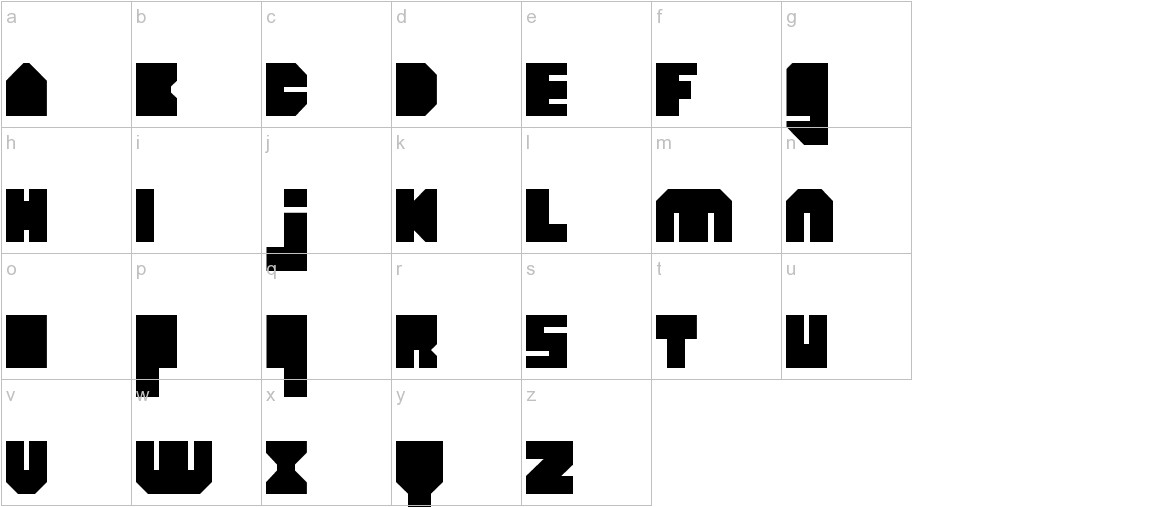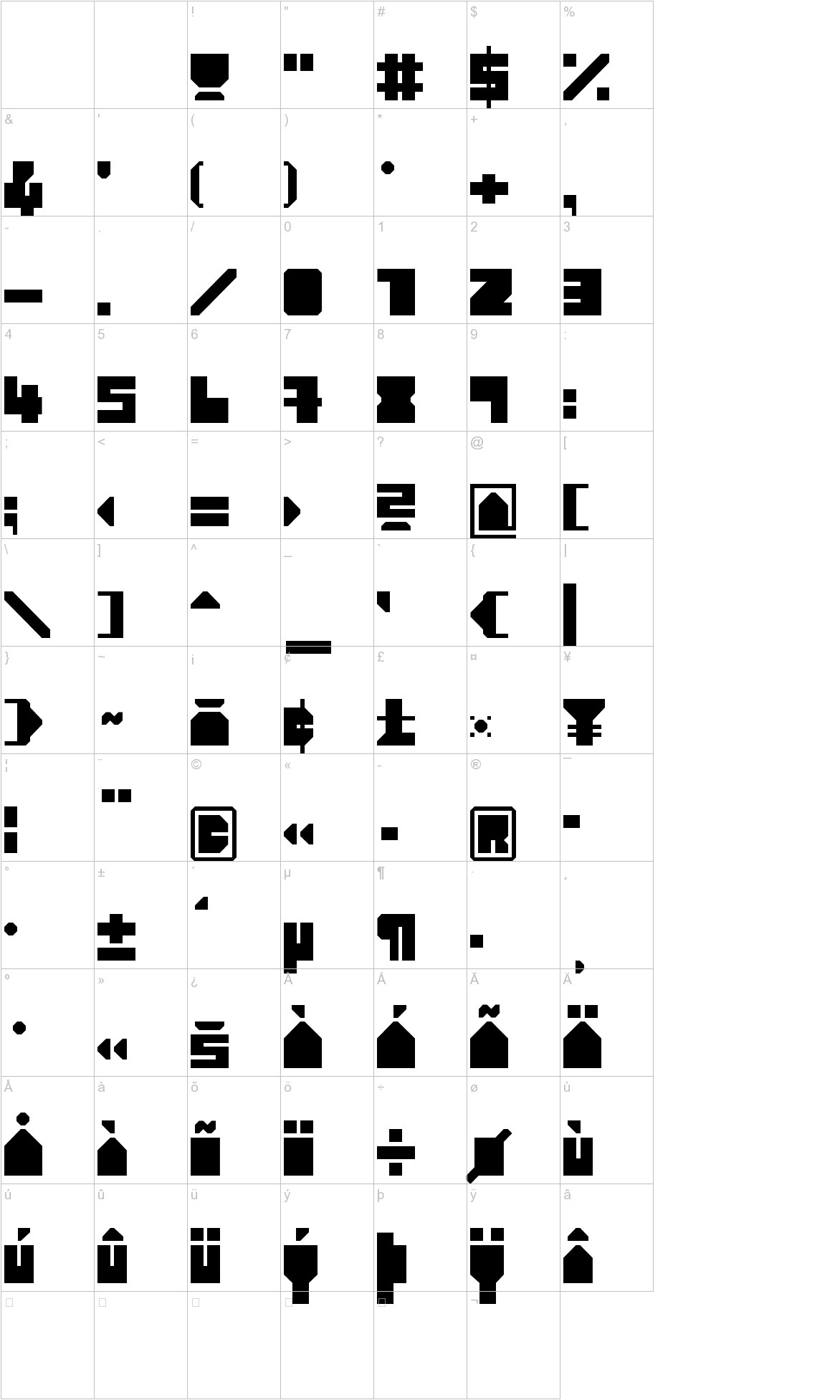
heavyLOUDedge
Headline Font / Display Font / Techno Fat Font "HeavyLoundEdge"
with 4 stlyes (regular, bold, light, line) & 304 glyphs
inkl. accents & ?
Font for the Blanket Magazine Issue 15